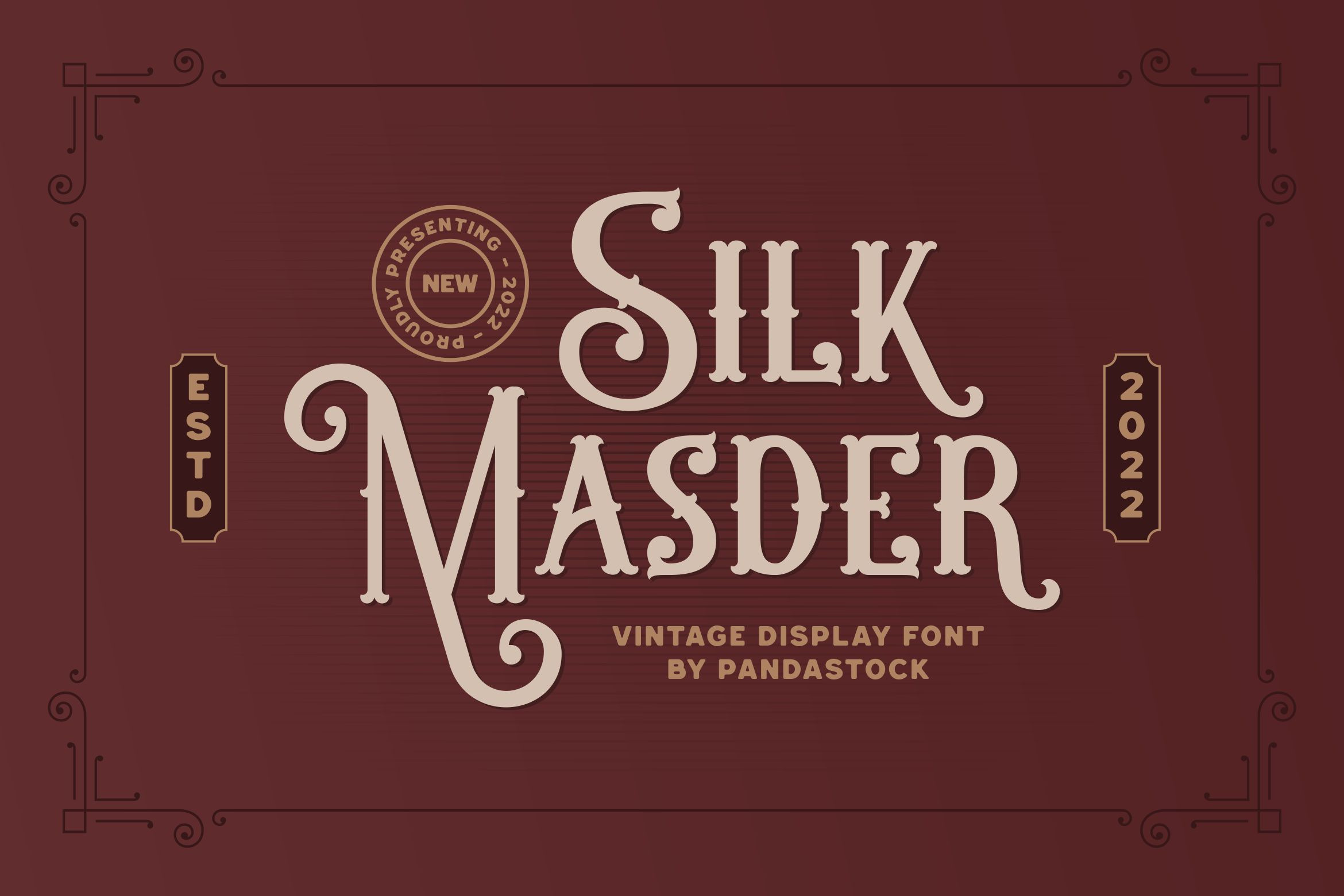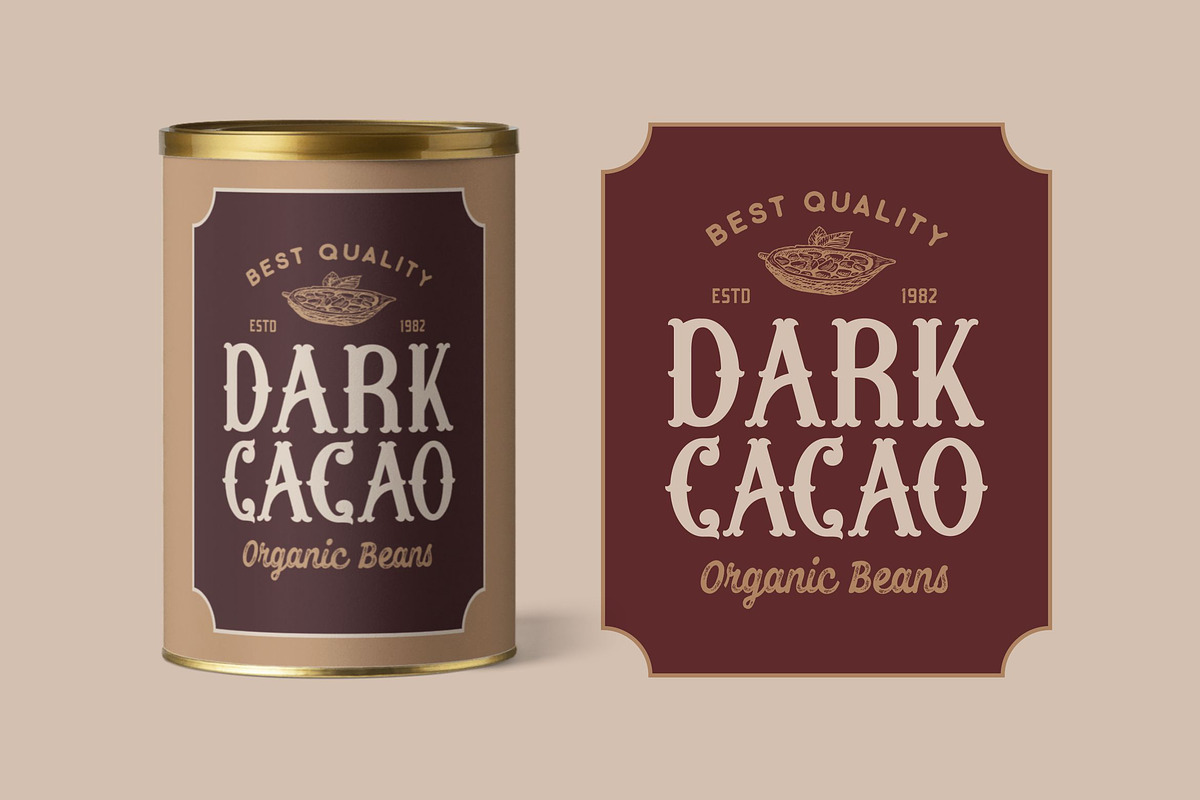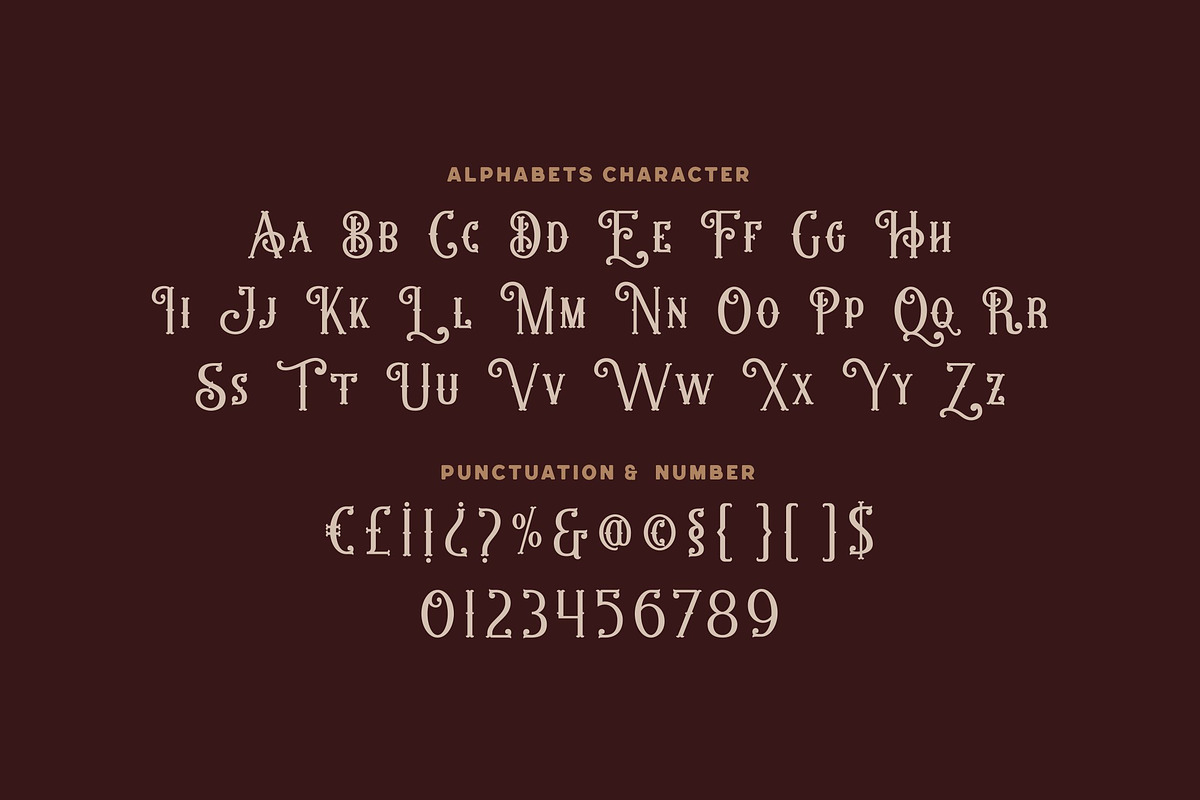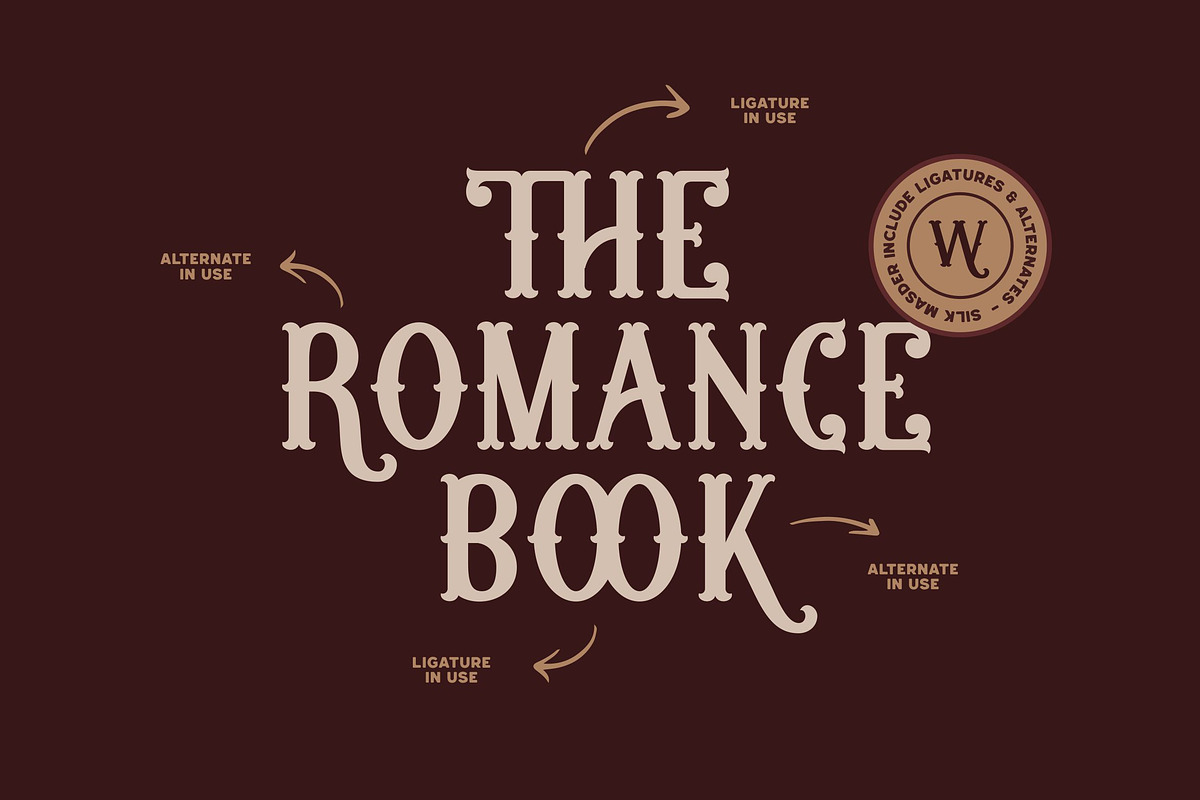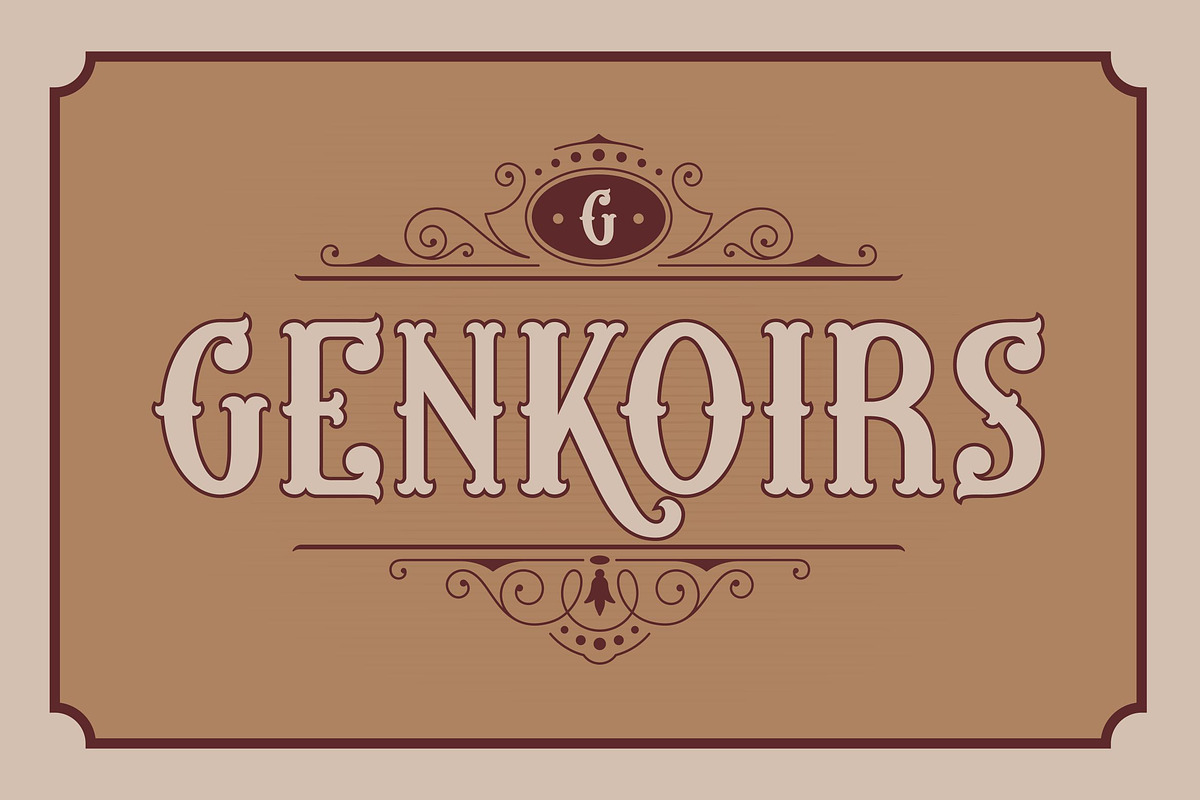
Silk Masder - Vintage Display Font
Silk Masder is a stunning vintage display font exudes romantic charm that blends ornamental details with timeless elegance. Featuring unique swashes, decorative alternates, and smooth ligatures, this typeface captures the essence of old world charm while remaining versatile for modern branding.
The font's distinctive curves and refined strokes make it perfect for logo design, packaging, editorial titles, signage, invitations, and high end product labels. Whether you're aiming for a nostalgic retro aesthetic or a contemporary twist on vintage design, Silk Masder delivers with authenticity and flair.
- Alternates and Ligatures.